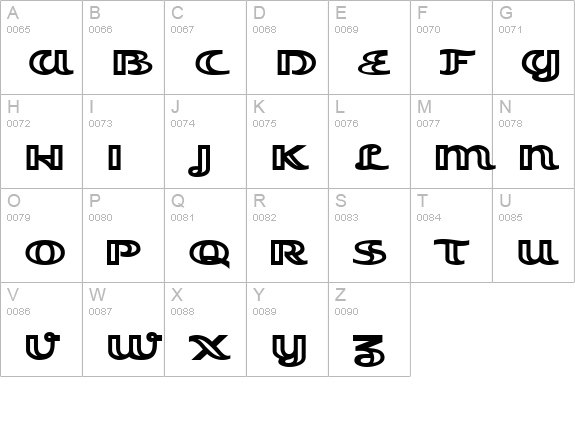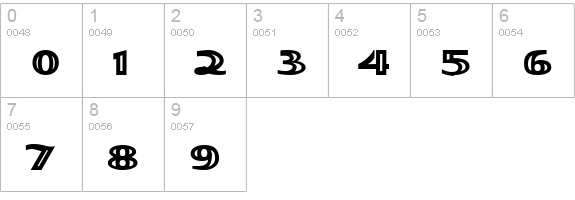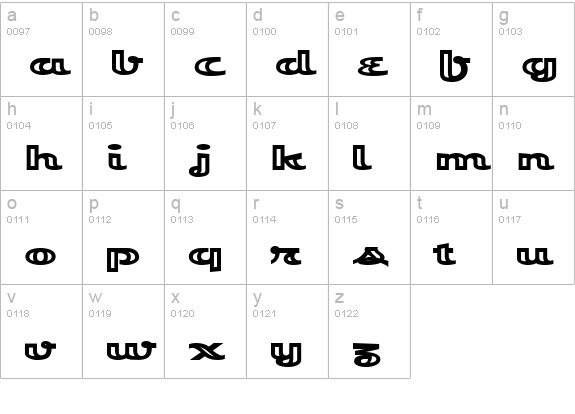
EsquivelEngraved Font Details
EsquivelEngraved font is a stunning display typeface that exudes elegance and sophistication. Its intricate engravings and ornate details give it a timeless and luxurious appeal, making it perfect for adding a touch of class to any design project. The exquisite craftsmanship of this font is truly remarkable, with each letter meticulously designed to perfection. And the best part? EsquivelEngraved font is available for free download at FontsMarket.com. Whether you're working on invitations, branding, or any other creative project, this font will undoubtedly elevate your designs to the next level. Don't miss out on the opportunity to add this exquisite typeface to your collection and make a lasting impression with your work. Download EsquivelEngraved font today and unleash your creativity!